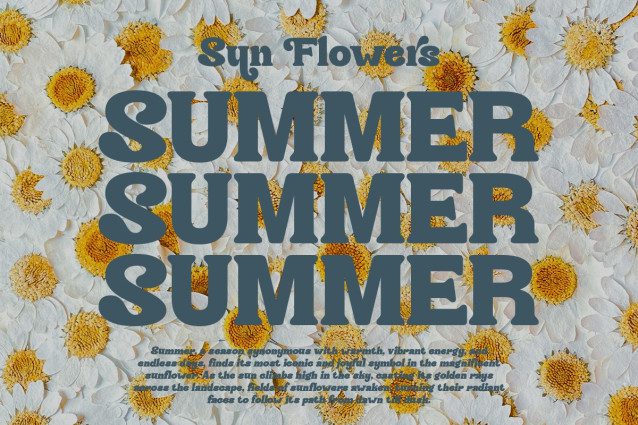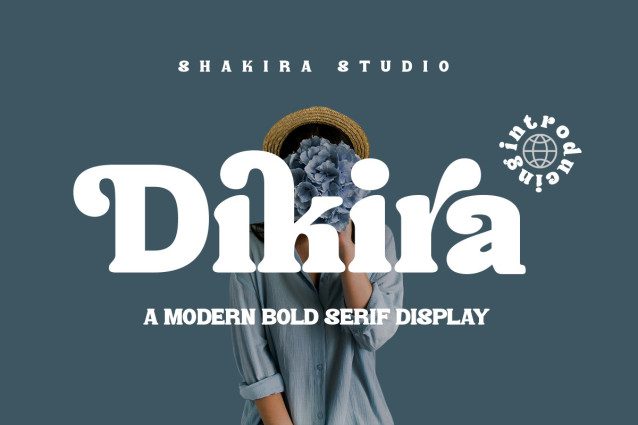
Dikira Font
Dikira Font is a bold serif typeface with retro energy and contemporary polish. Each letterform features soft edges and playful curves, perfect for retro branding, modern packaging, and expressive headlines. It’s bold yet friendly — a versatile display font made for creative projects that stand out.